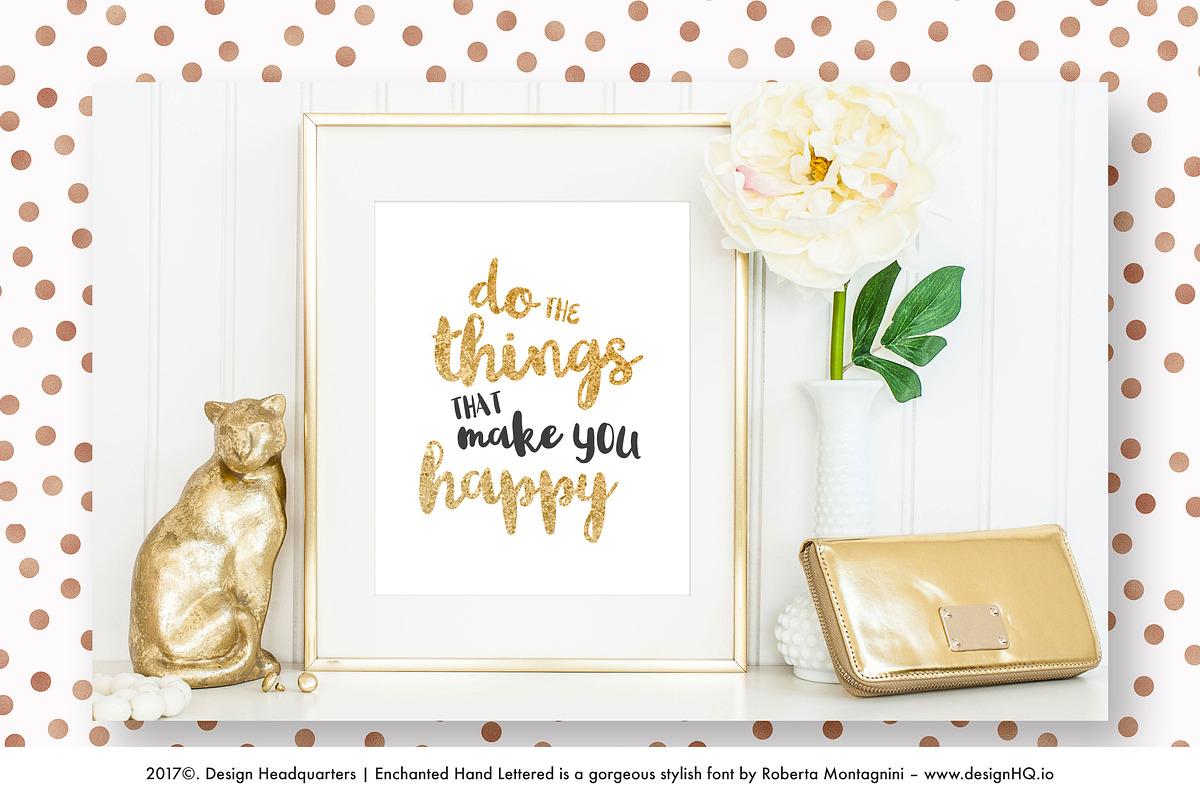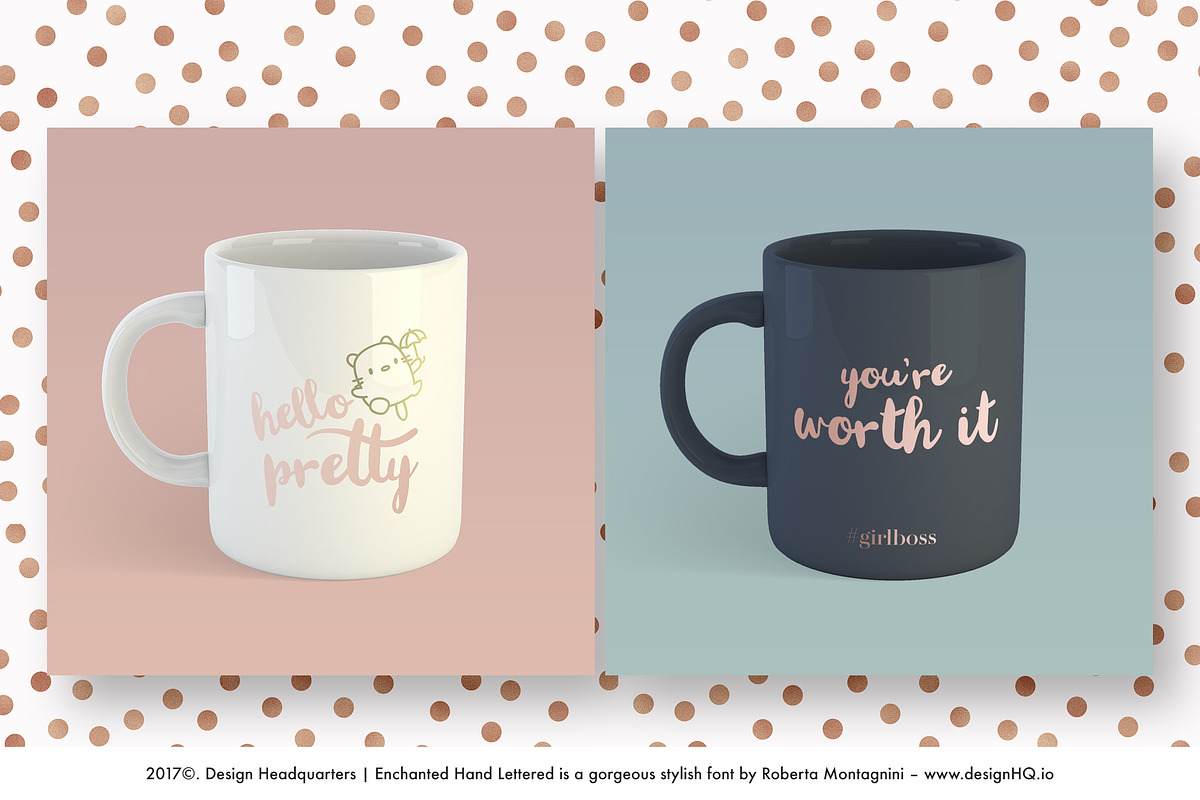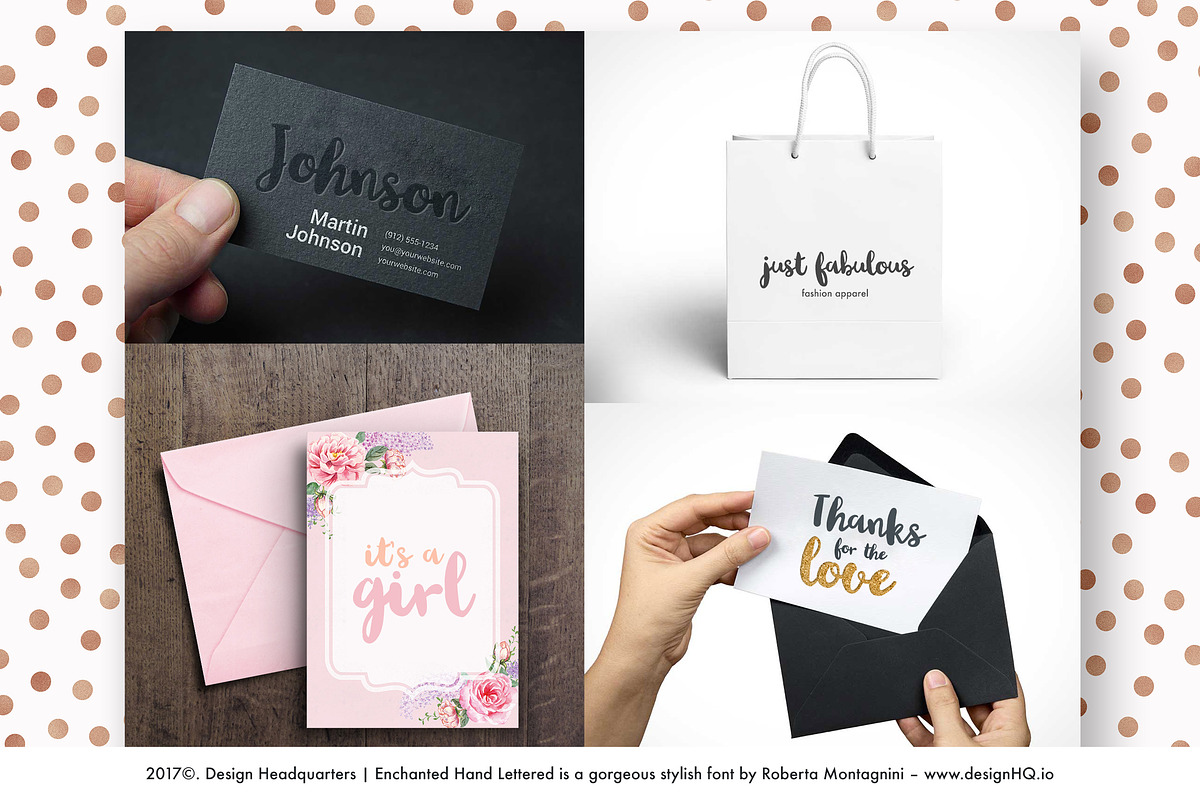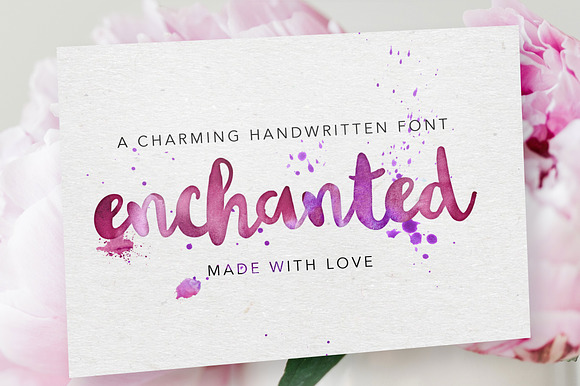
Enchanted Script is a handwritten font, my first font created specially for Creative Market. A modern, elegant and fun handwritten font with lots of personality. This beautiful font is waiting for you to create amazing things!
It has all the major special characters, soe ligatures and some extra design glyphs.